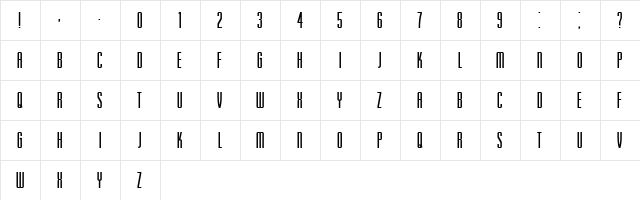
Passionate Relationship Regular
Design Context for Passionate Relationship Typeface
Passionate Relationship offers clean, dependable letterforms without strong stylistic allegiance, making it a practical choice for designers who need flexibility.
Pro Tip: Use Passionate Relationship in both headline and body roles to test its range before committing to a single application.